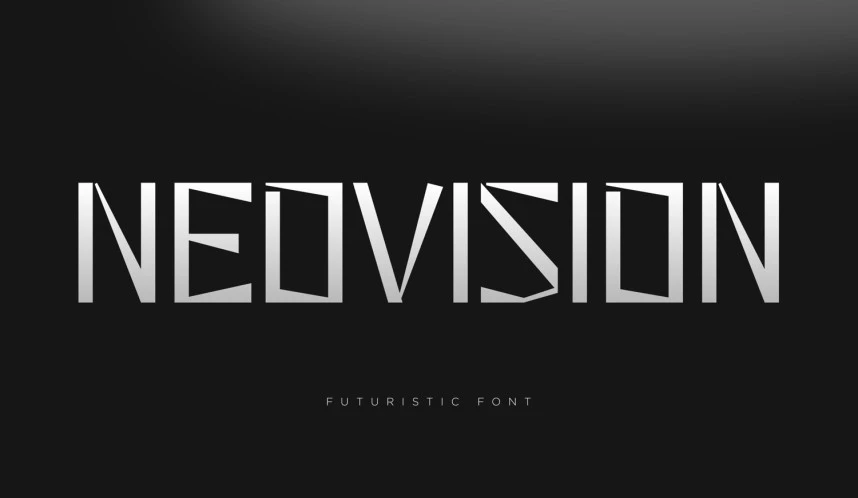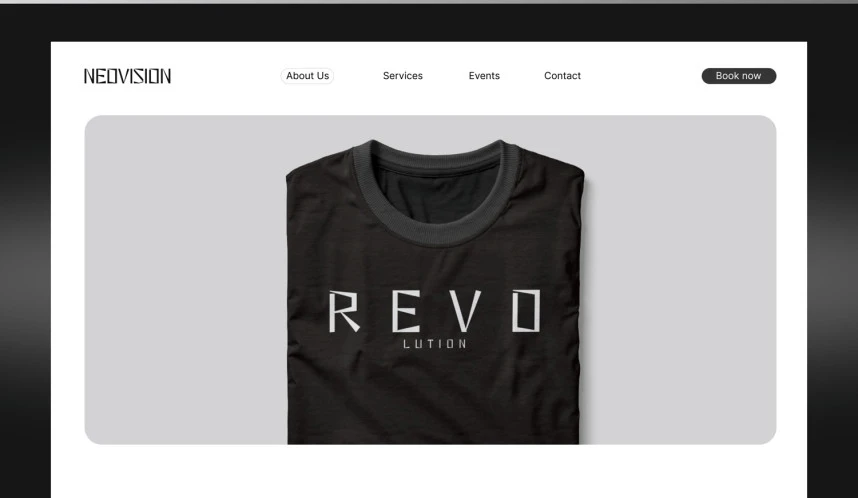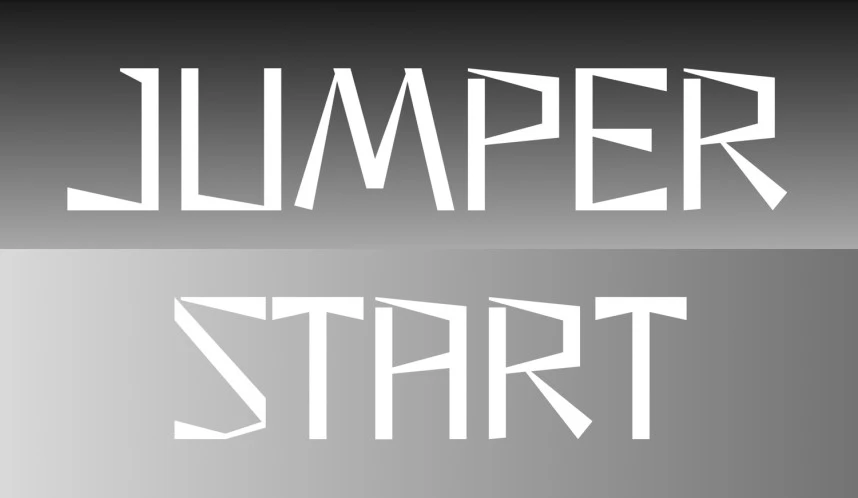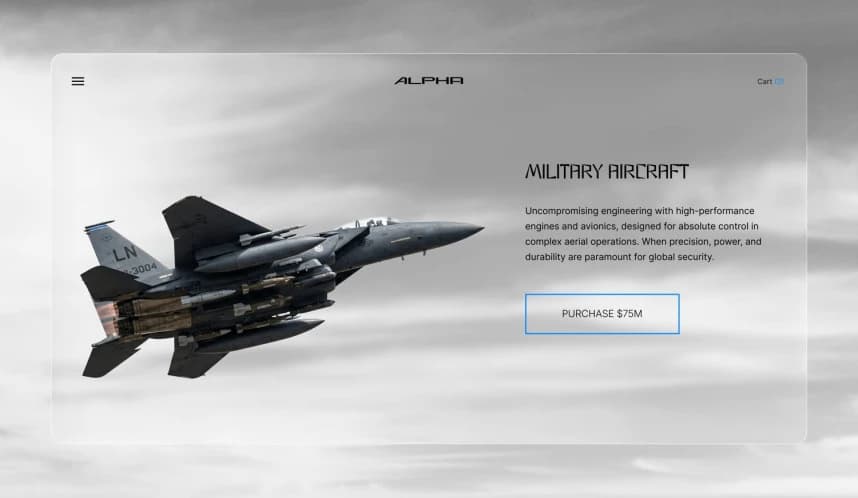
FT Neovision Font
FT Neovision Font is a bold, futuristic display font meticulously engineered by Firstype Studio. Defined by its aggressive geometric structure and sharp, blade-like terminals, this typeface captures the raw essence of high-tech innovation and cinematic scale.
FT Neovision